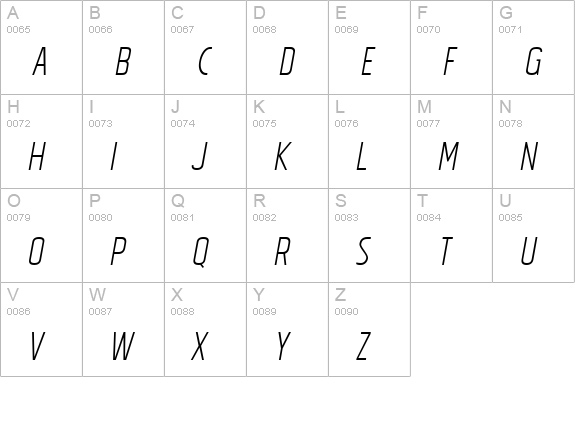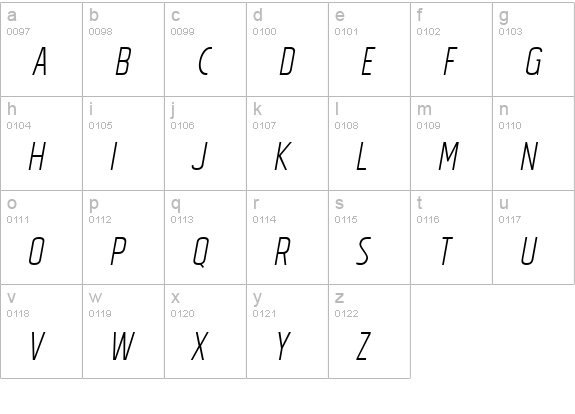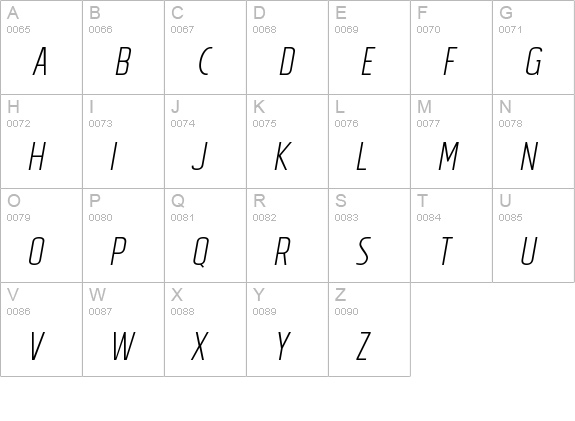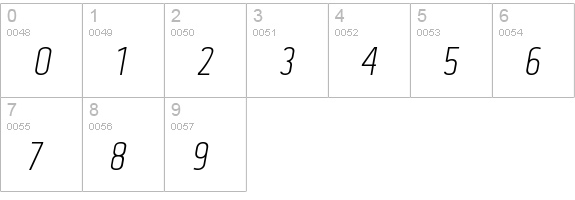
Tolyer Light no.4 Oblique is a refined, elegant, italic variant in the Tolyer typeface family \xE2\x80\x94 well suited to elegant body text, refined sub-headings, and luxury branding.
Tolyer Light no.4 Oblique font is a sleek and modern typeface that exudes elegance and sophistication. Its slanted design adds a touch of dynamism and creativity to any project, making it perfect for branding, advertising, and editorial design. The clean lines and smooth curves of this font make it easy to read while still maintaining a sense of style. What's even better is that Tolyer Light no.4 Oblique font is available for free download at FontsMarket.com. By offering this font for free, designers and creatives can easily access and incorporate it into their work without any additional cost. Whether you're a seasoned professional or a hobbyist designer, this font is a valuable addition to your toolkit. Don't miss out on the opportunity to enhance your designs with the timeless beauty of Tolyer Light no.4 Oblique font – download it for free today at FontsMarket.com!